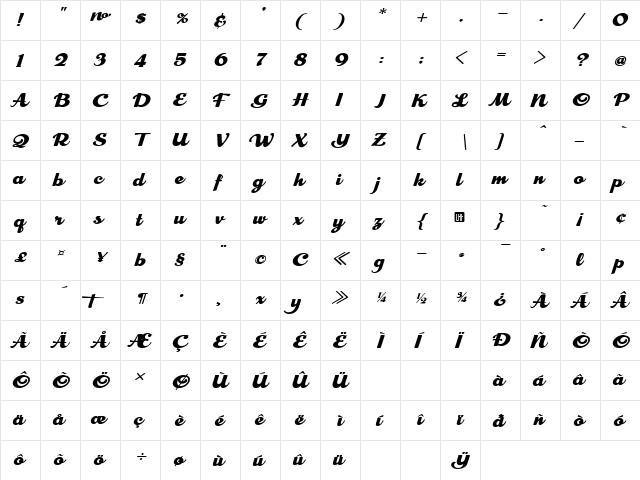
LHF Cosmic Cursive II Regular
Design Context for LHF Cosmic Cursive II Typeface
LHF Cosmic Cursive II brings a calligraphic fluidity to the page — its connecting strokes and expressive curves give it an unmistakably human quality.